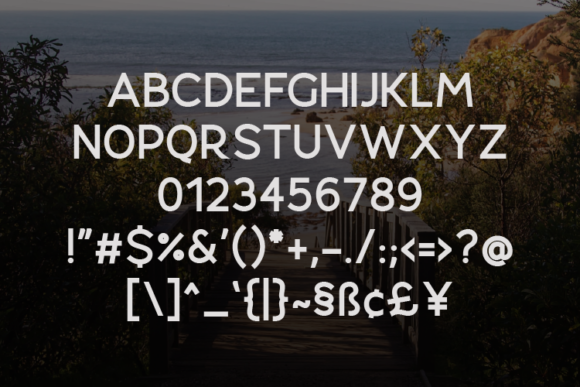
Introduction to Quinestha Black Font Font
Fonts play a crucial role in design, and the Quinestha Black Font font is a typeface that brings both character and versatility to any project. Whether you’re working on a branding project, a website, or a print design, the Quinestha Black Font font offers a unique style that can elevate your work.
Quinestha is simple but elegant and defined by its crisp edges and modern touches.
It is designed for optimal legibility and works great in branding, logos, headlines, high fashion and much more .
Key Features of Quinestha Black Font Font
Why Choose Quinestha Black Font Font?
The Quinestha Black Font font is more than just a typeface – it’s a design tool that helps you communicate your message with style and clarity. Its unique character set and versatile design make it suitable for a wide range of applications, from elegant invitations to bold headlines.
With its carefully crafted letterforms and balanced proportions, the Quinestha Black Font font ensures readability and visual appeal across all mediums.
What makes Quinestha Black Font font special?
The Quinestha Black Font font stands out with its unique design, exceptional readability, and versatility across various design applications.